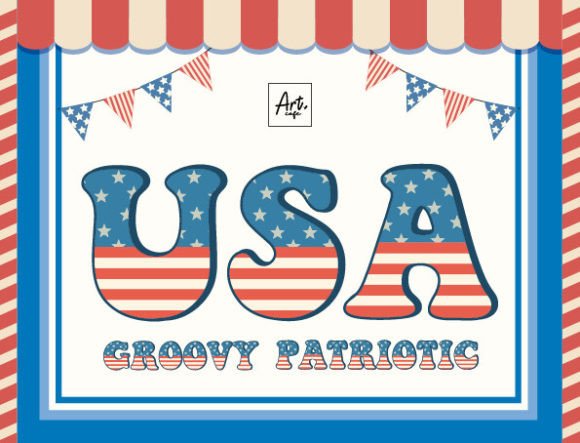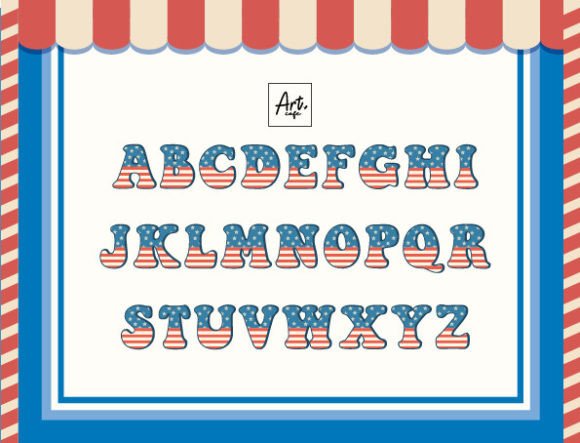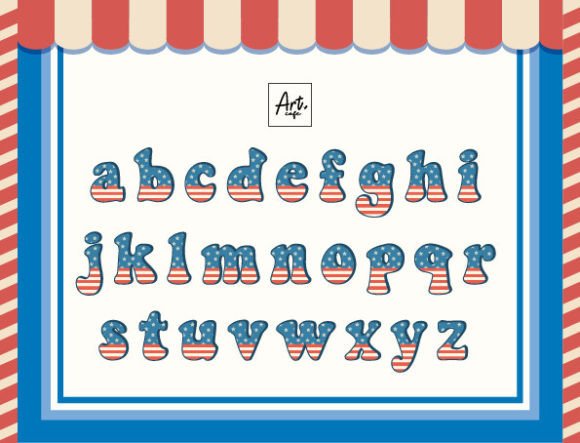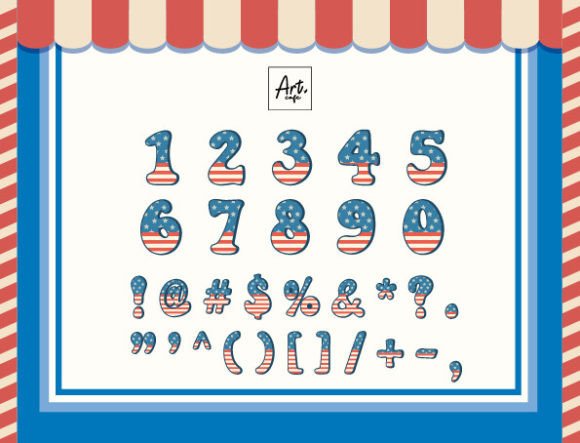
Groovy Patriotic Font
About the Groovy Patriotic Font
Experience the unique personality of Groovy Patriotic Font, a font designed for impact. Introducing Groovy Patriotic, a color font design that embodies the spirited beauty of America. Adorned with the timeless motifs of United States flags, this font linger lovingly between modernity and a crisp retro appeal. On the 4th of July, as we celebrate the USA’s Independence Day, allow Groovy Patriotic to breathe life into your designs, exuding a charm harking back to yesteryears, while still remaining relevant today.
Groovy Patriotic’s bold, playful style is ideal for headlines, short slogans, posters, and celebratory branding materials. Its retro-inspired design lends itself well to projects evoking Americana, vintage aesthetics, or a sense of joyful patriotism. However, its decorative nature makes it unsuitable for body text or UI elements where legibility is paramount. Avoid using it for long paragraphs or applications requiring high levels of readability.
Pairing it with a clean sans-serif like Open Sans or a neutral serif like Lora will create a balanced and sophisticated design. For a more playful effect, consider pairing it with a hand-drawn script font like Pacifico. The contrast will enhance its energetic character without overwhelming the design.
The font’s core personality is energetic and celebratory, making it a strong choice for brands emphasizing nostalgia, American pride, or a fun, summery vibe. Avoid using it for projects demanding a serious or formal tone.